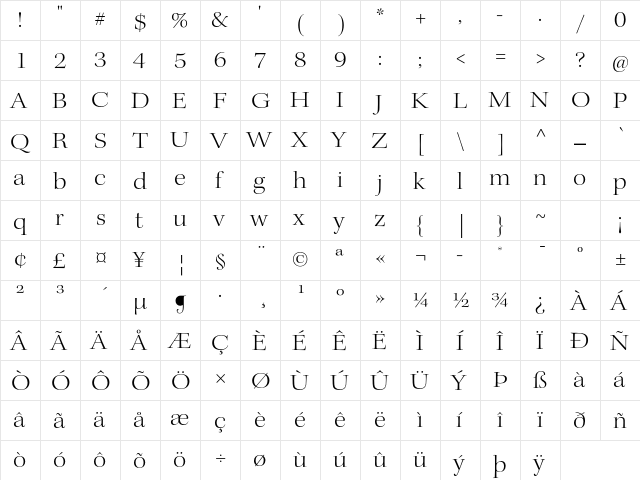
Kepler Std Light Extended Display
Light Extended Display ·  Robert Slimbach ·
Design Context for Kepler Std Typeface
Kepler Std is built around its visual character rather than neutral utility — its distinctive forms are designed to make an impression at display sizes. The delicate stroke weight brings airiness and refinement to layouts.
Font Pairing: Pair with a clean neutral sans-serif for body copy to let Kepler Std's character lead without overwhelming the composition.
Pro Tip: Treat Kepler Std as the centrepiece of your typographic hierarchy. One strong heading set in a decorative face can carry an entire layout.